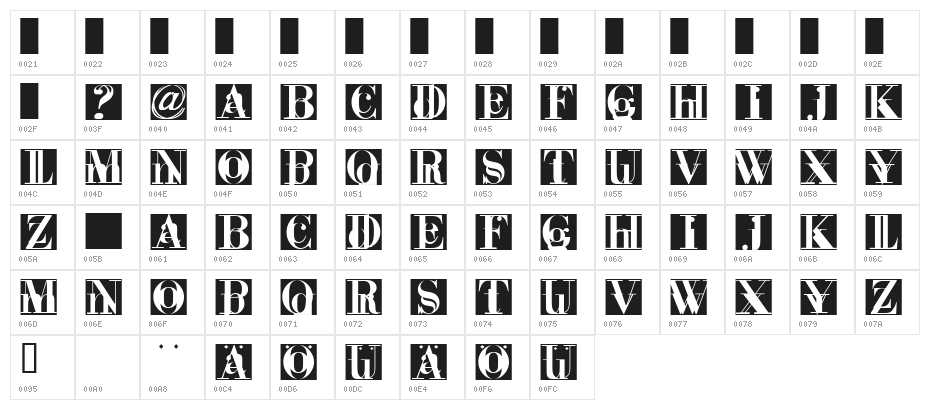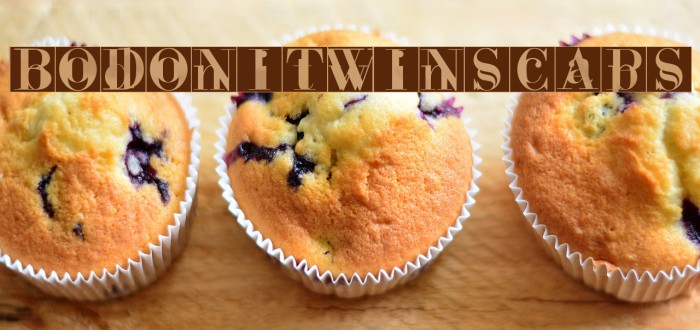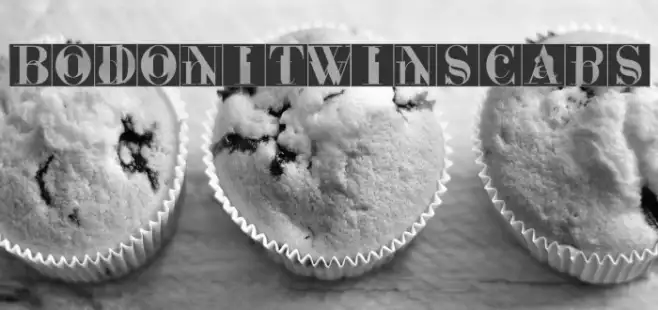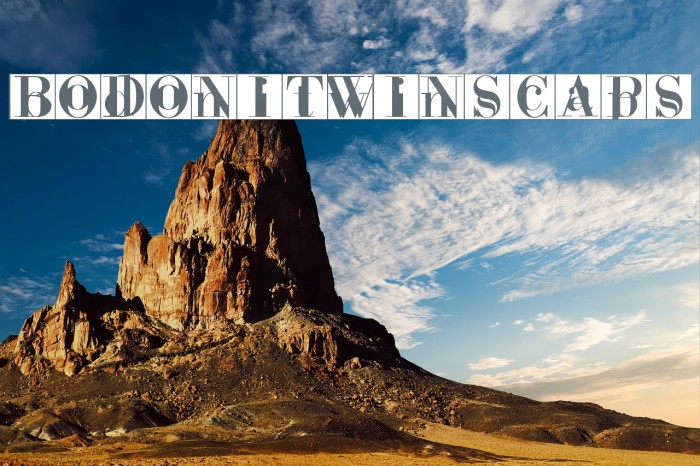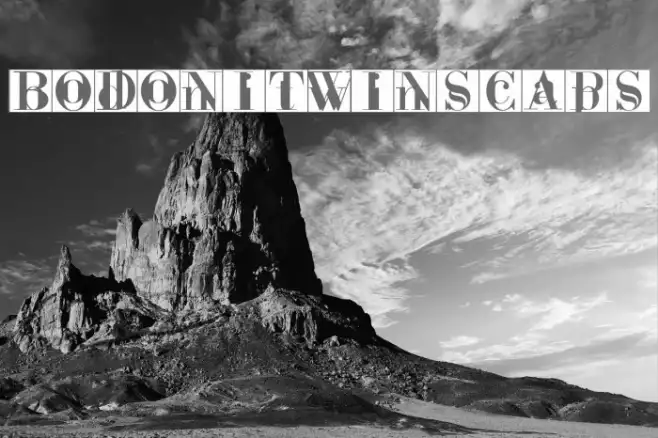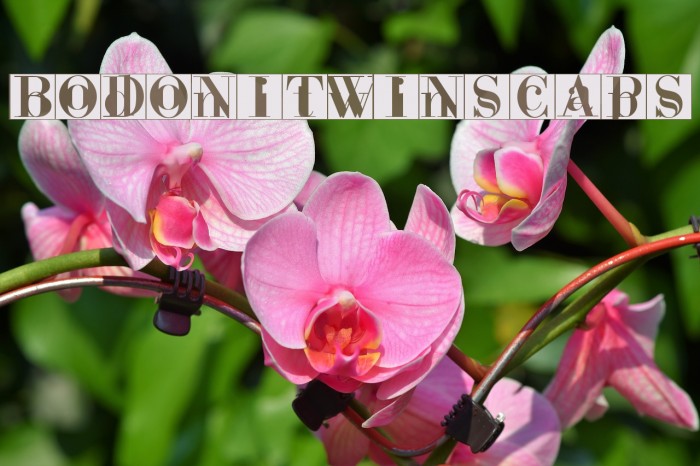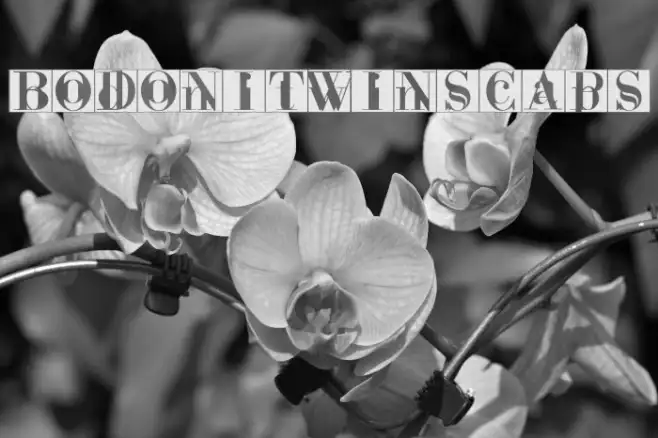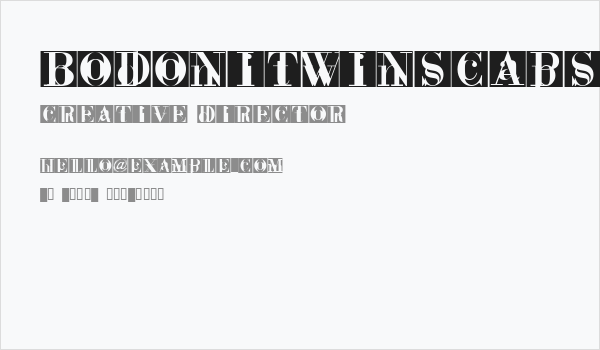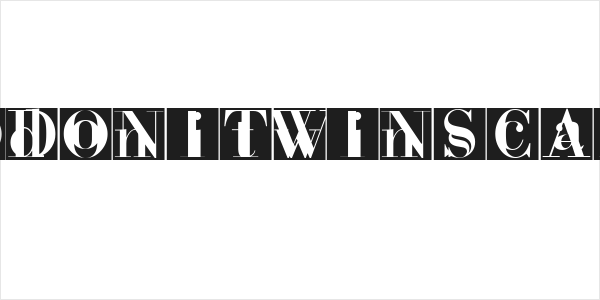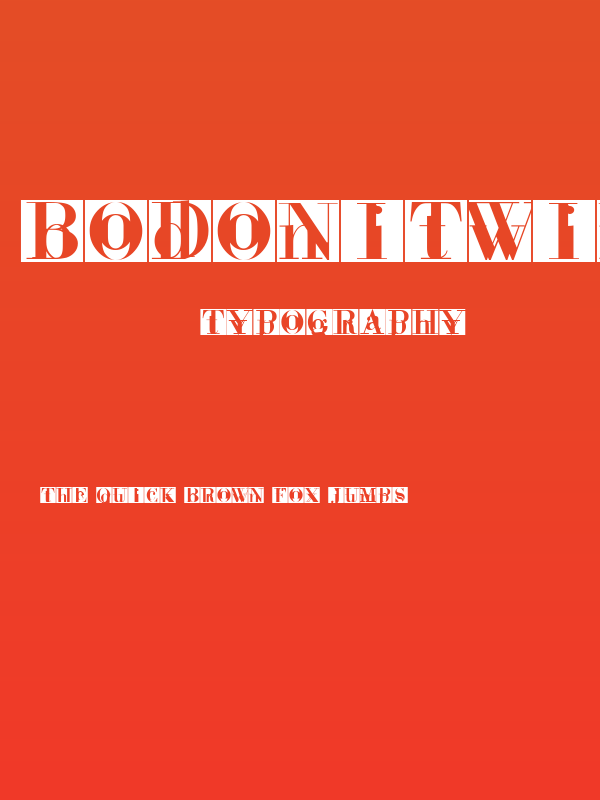
BodoniTwinsCaps Font
BodoniTwinsCaps Description
This font features a bold and striking design with a high contrast between thick and thin strokes, giving it a dramatic and elegant appearance. The uppercase letters are characterized by their strong vertical lines and delicate serifs, while the lowercase letters maintain a consistent style with slightly more rounded forms. The numbers are designed with the same boldness and contrast, ensuring uniformity across all characters. The special characters are uniquely styled, adding a touch of sophistication and flair. Overall, this font exudes a sense of luxury and refinement, making it ideal for high-end branding and design projects.
| Use Case | Logos, Headlines, Editorial Design |
| Proposed Projects | Ideal for luxury branding, editorial design, high-end product packaging, and elegant invitations. |